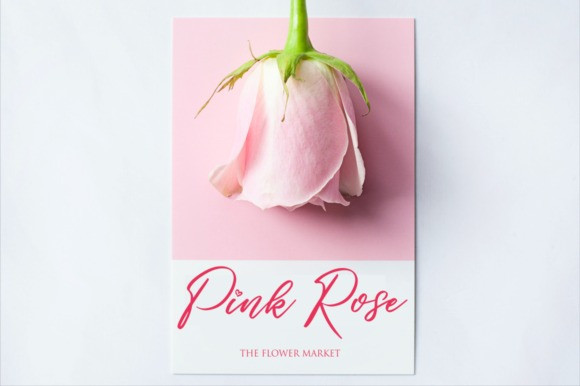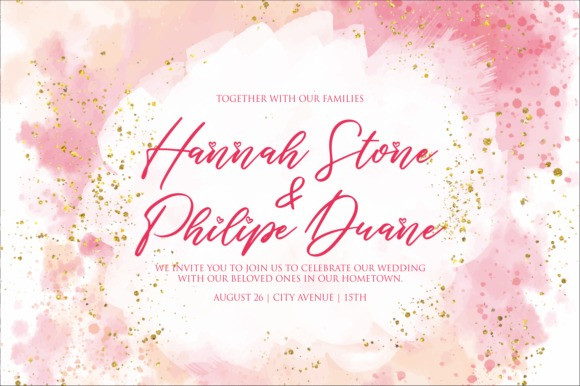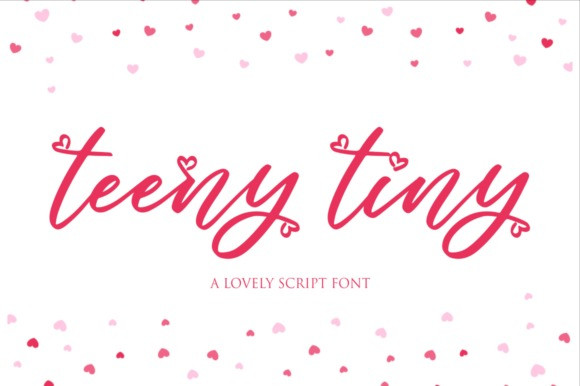
Christina Calligraphy Font
Christina is a beautiful and romantic script font. It features alternative, ligatures and swashes. Fall in love with its authentic feel and use it to create gorgeous wedding invitations, beautiful stationary art, eye-catching social media posts, and cute greeting cards.